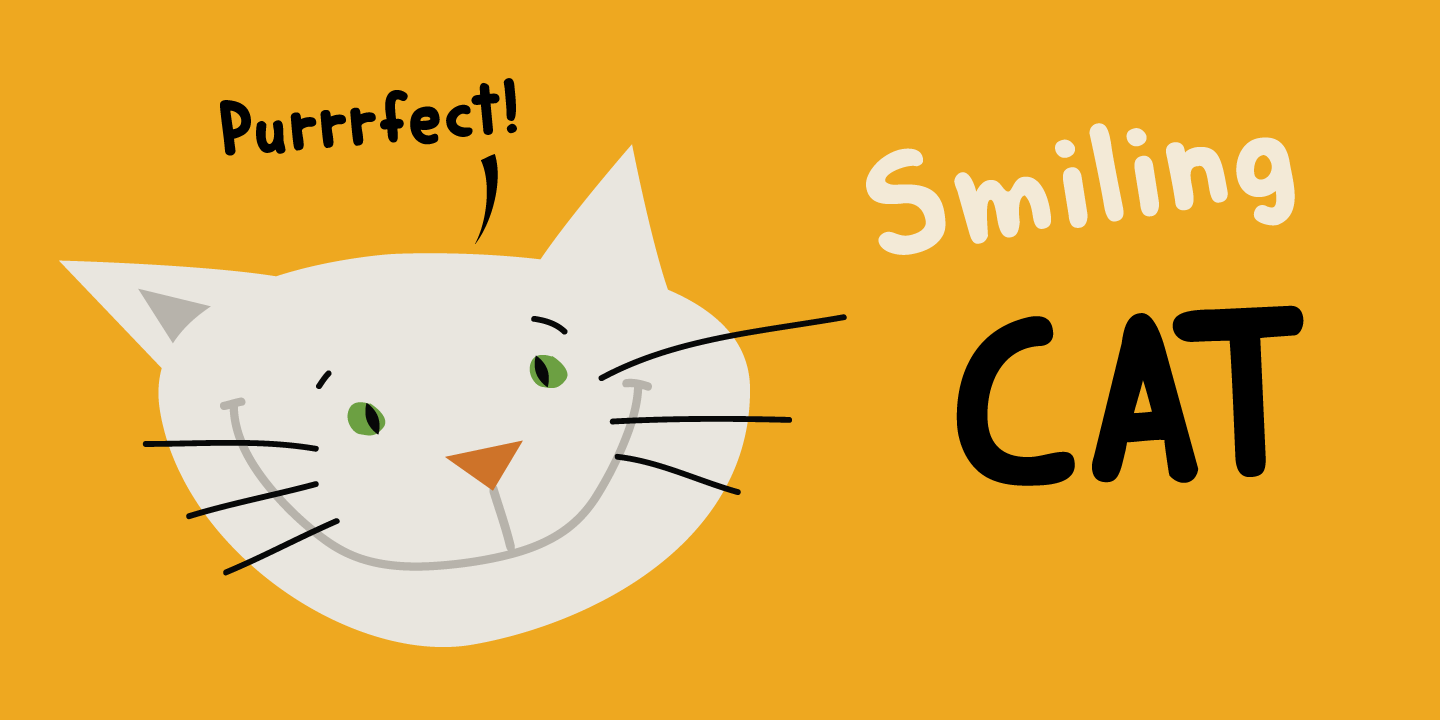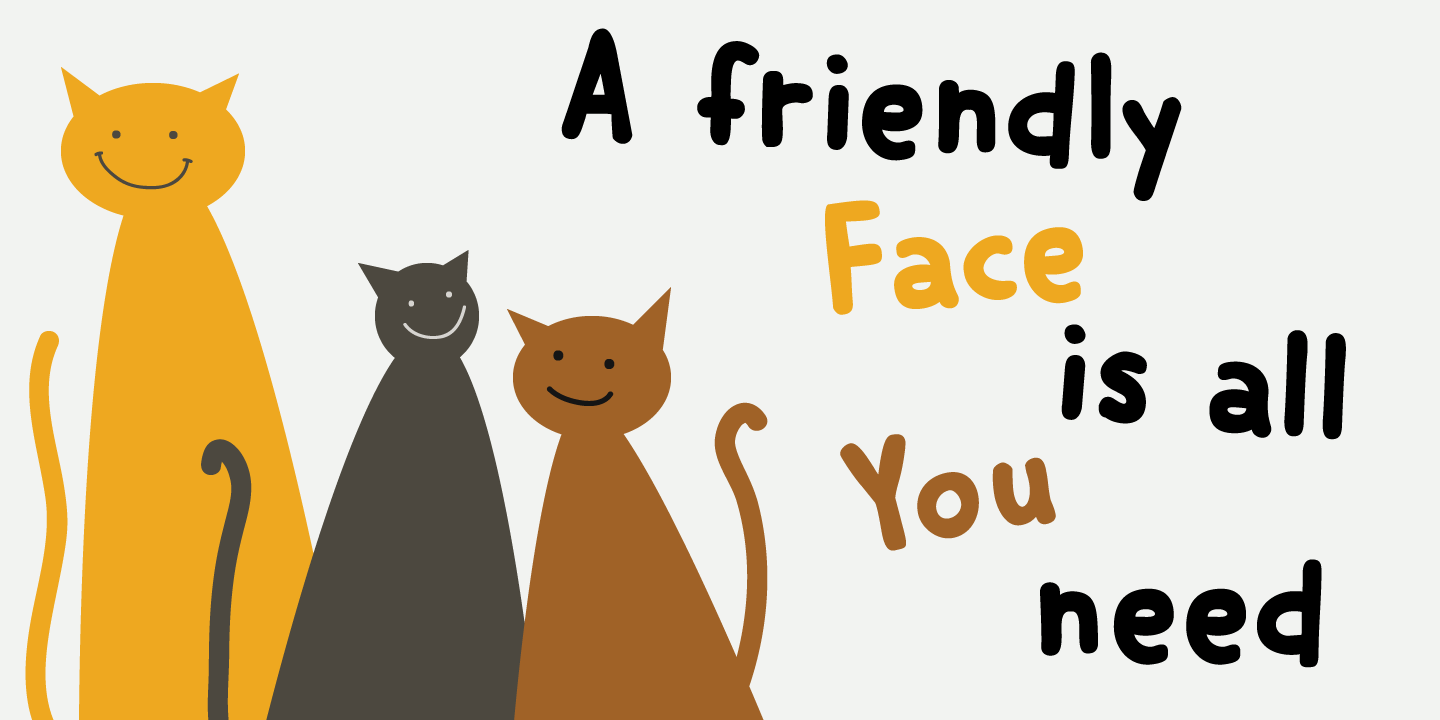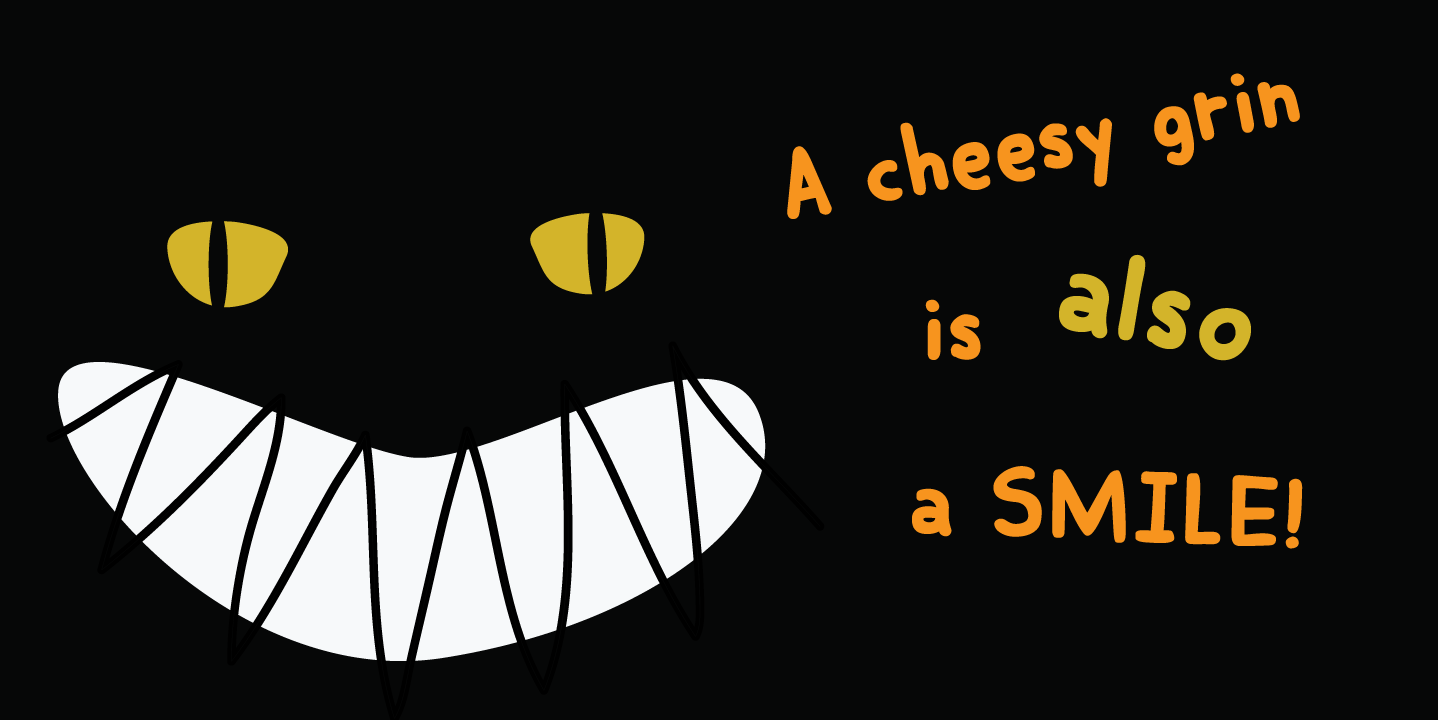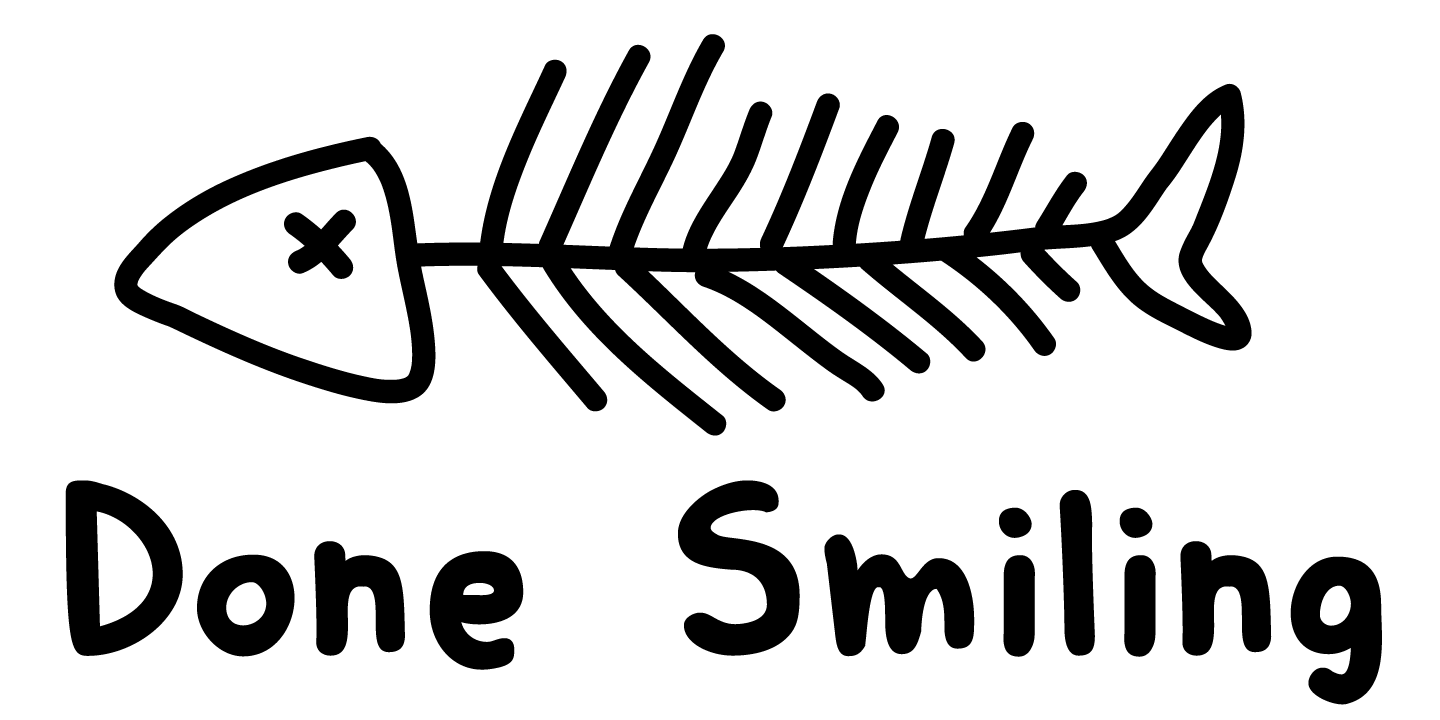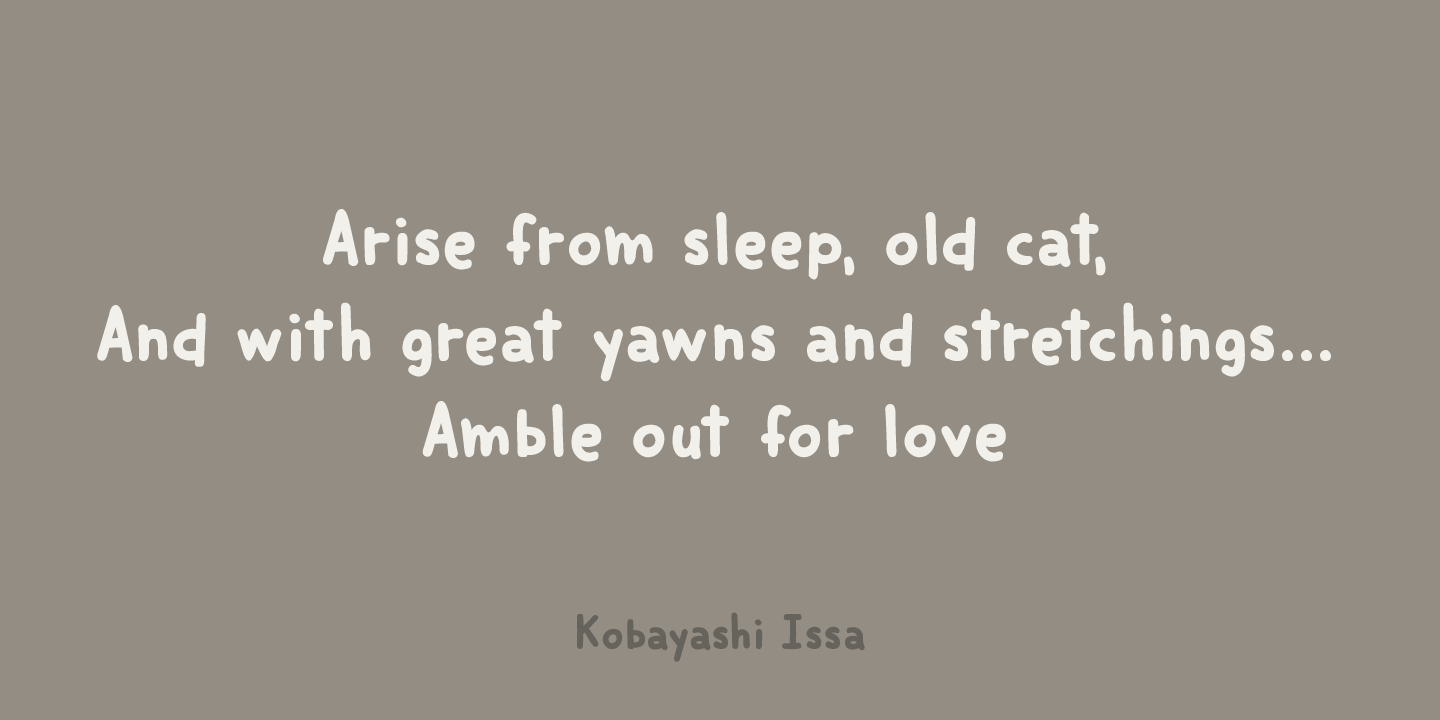
Smiling Cat
Smiling Cat is a cute little font. It is an adaptation of and older font of mine: Harimau Dua. I have had many requests for a bold version of Harimau, so I started working on it, changed a few glyphs, redid the kerning and cleaned it up. Rather than adding it as an extra bold style to my existing font, I thought it?d be better to launch it as a new one. Smiling Cat is handmade, cute and quirky, it would be ideal for Children's Book Covers. Comes with a litter of diacritics.